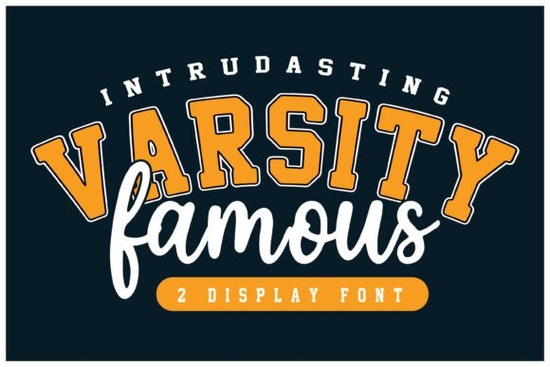
Finding the right typeface for sports branding, athletic logos, or team merchandise can be tricky. You need something bold enough to stand out on a jersey but refined enough to look professional on a website. That's exactly what the Varsity Famous Font delivers a two-piece display typeface set built around a sturdy slab-serif and a clean monoline script. If you're designing for a fitness brand, a local sports club, or print-on-demand athletic apparel, this font collection deserves a closer look.
What makes Varsity Famous different from other varsity-style fonts?
Plenty of fonts claim that classic athletic feel, but many end up looking generic or outdated. Varsity Famous takes a slightly different approach by pairing two complementary styles in one package:
- A bold slab-serif display font with rhythmic, outlined letterforms that feel both structured and energetic
- An elegant monoline script that adds a refined, handwritten quality without being too casual
The combination gives you flexibility. You can use the slab-serif alone for a strong, no-nonsense headline. Add the script underneath for a tagline or team motto, and suddenly your design has depth and personality. If you've browsed other options like retro-inspired jersey fonts, you'll notice Varsity Famous leans more modern while still honoring that traditional athletic prestige.
What kinds of projects work best with this font?
Varsity Famous was designed with specific use cases in mind, and it really shines in these areas:
- Sports team logos and identities from local leagues to independent club branding
- Collegiate-style apparel and merchandise think letterman jackets, hoodies, and caps
- Fitness center signage and branding gym walls, class schedules, membership cards
- Social media headers and graphics bold, athletic-themed posts that grab attention
- Print-on-demand products t-shirts, mugs, and stickers with a sporty vibe
It pairs especially well with clean layouts. The font has enough structural weight on its own, so you don't need to stack too many design elements around it. For sellers on platforms like Redbubble or Etsy, that simplicity can actually speed up your workflow.
How does it compare to other athletic display fonts?
It depends on the vibe you're going for. If you want something with a sharper, more aggressive edge, something like the Nitro Slash display font might suit a motorsport or extreme sports brand better. On the other hand, if you're designing for a well-known basketball-inspired project, the Chicago Bulls-style display font captures that iconic NBA aesthetic.
Varsity Famous sits in a sweet spot between those extremes. It's bold without being aggressive. It's classic without feeling dated. And because it includes both a serif and a script, you get more design mileage out of a single purchase.
Is this font easy to use for beginners?
A few practical tips for getting the most out of it:
- Use the slab-serif for headlines, titles, and logos where you need maximum impact
- Use the script for secondary text like taglines, dates, or short phrases
- Keep surrounding design elements minimal the font's bold outlines do the heavy lifting
- Test it at multiple sizes, especially for print-on-demand products where text scaling matters
If you're working on designs that call for a softer, more playful tone alongside your athletic projects, it's worth keeping a simple and cute display font in your toolkit as a contrast option.
Where can you get it and what's included?
Varsity Famous is available on Creative Fabrica, which means you can access it through their subscription model or purchase it individually depending on your plan. The package includes both the slab-serif and the monoline script, giving you a complete pairing for athletic and branding projects.
For print-on-demand sellers specifically, this kind of font duo is a smart investment. One download, multiple design variations, and a consistent visual identity across different product types.
Quick checklist before you buy
- ✅ Think about your primary use case logos, apparel, signage, or social media
- ✅ Consider how the slab-serif and script will work together in your layout
- ✅ Make sure the bold, outlined style fits your brand's personality
Start by picking one project a team logo, a gym poster, or a single t-shirt design and test Varsity Famous in that context. You'll know pretty quickly whether its bold, competitive personality is the right fit for your brand.